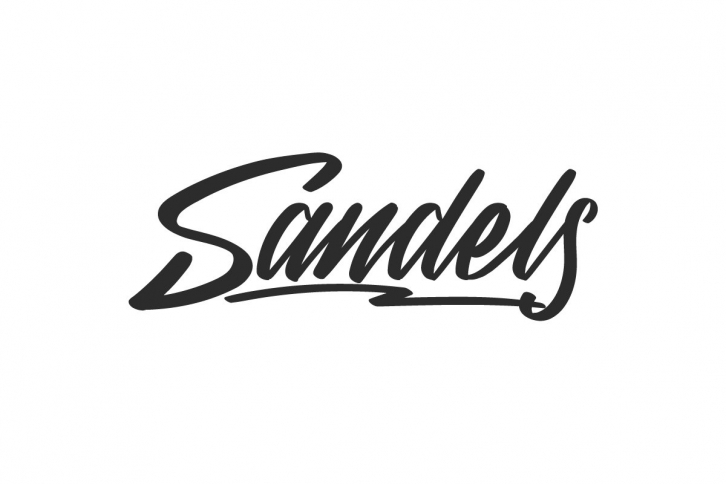
Sadels is a beautiful font that was designed by NihStudio. It's a great choice for designers and creatives who need such a font. It was released on December 23, 2020 and the file size is 4.13 MB. Sadels may give a more youthful, expressive and casual look to your project. It is a very beautiful, refined, elegant, and high-quality font.